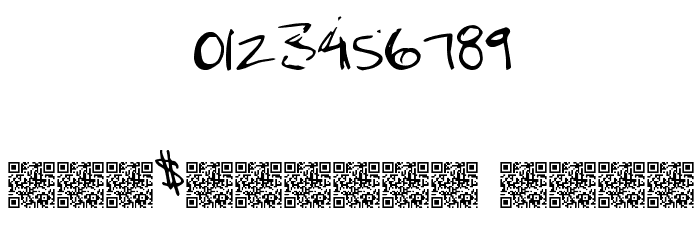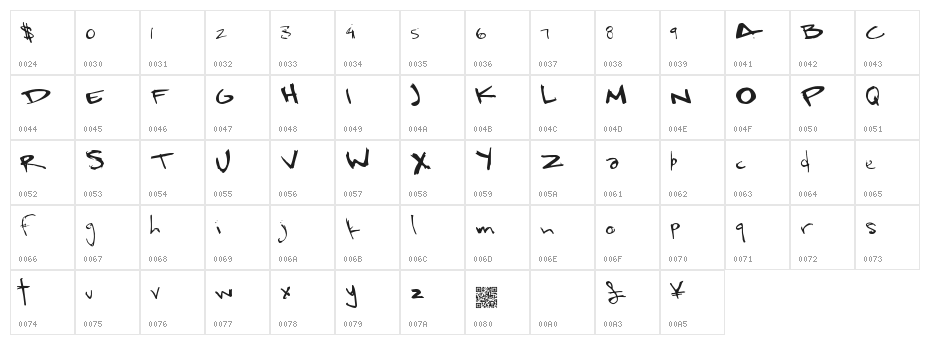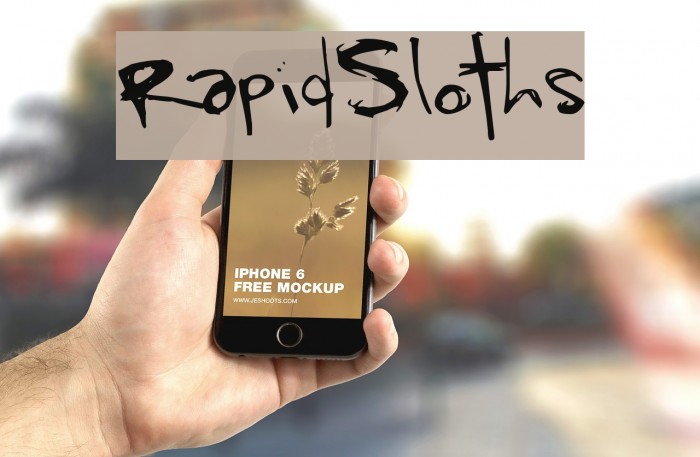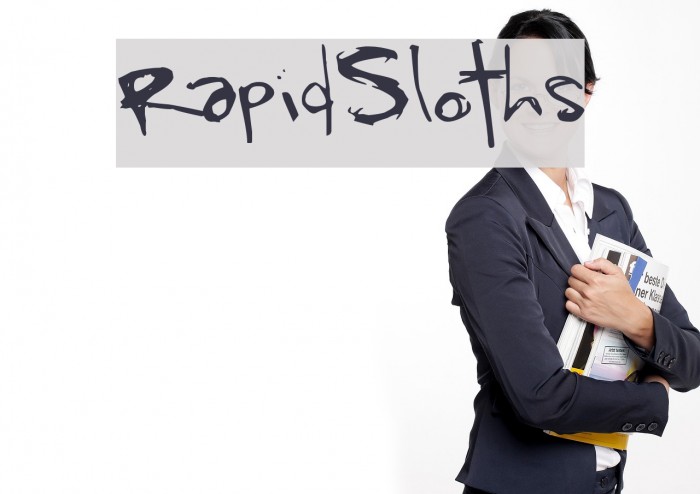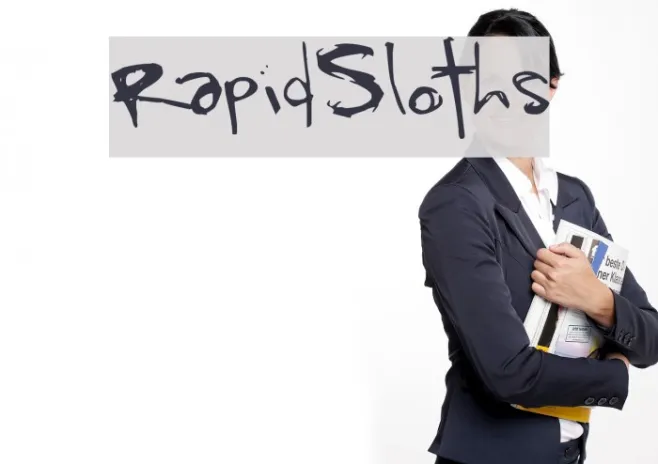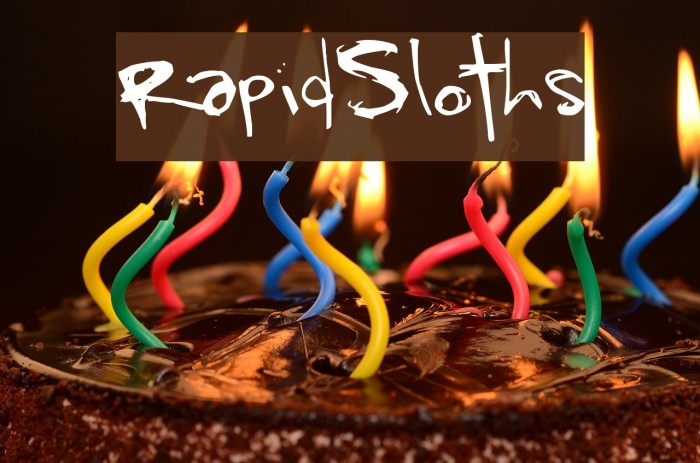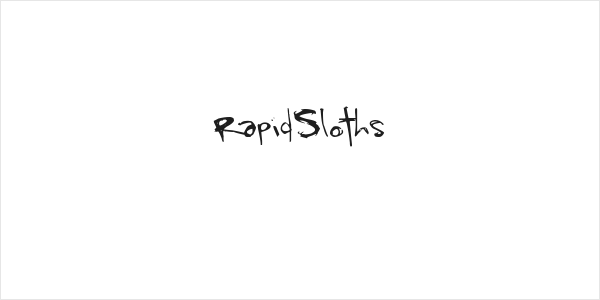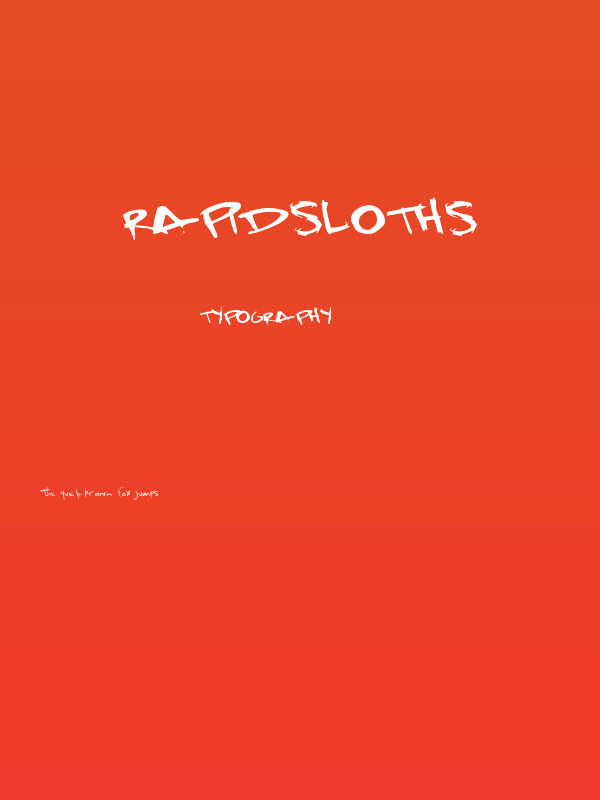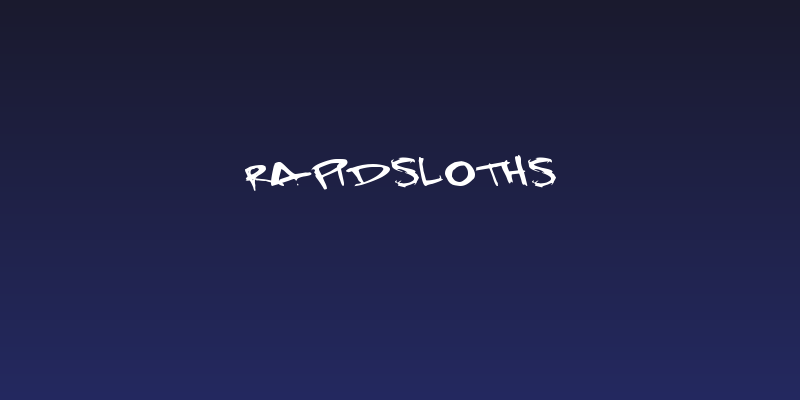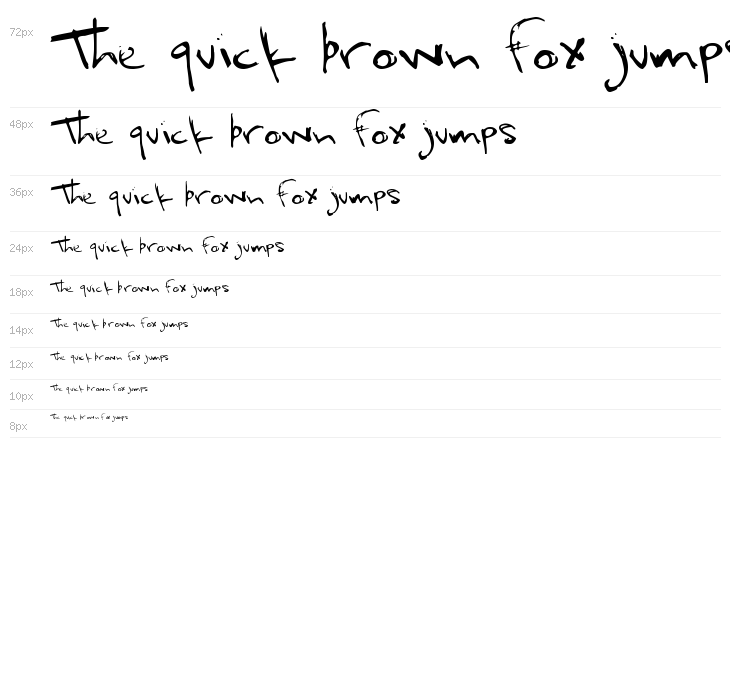
RapidSloths Font
RapidSloths Description
This font exhibits a dynamic and energetic style, characterized by its bold, brush-like strokes and irregular letterforms. The uppercase letters are particularly striking, with a sense of movement and spontaneity that suggests a hand-drawn quality. The lowercase letters maintain this lively aesthetic, though they are slightly more restrained, providing a nice balance. The numerals and special characters follow suit, with each character appearing unique and full of personality. The overall impression is one of creativity and expressiveness, making it ideal for projects that require a strong visual impact.
| Proposed Projects | Ideal for artistic posters, creative branding, album covers, and any project needing a bold, expressive touch. |